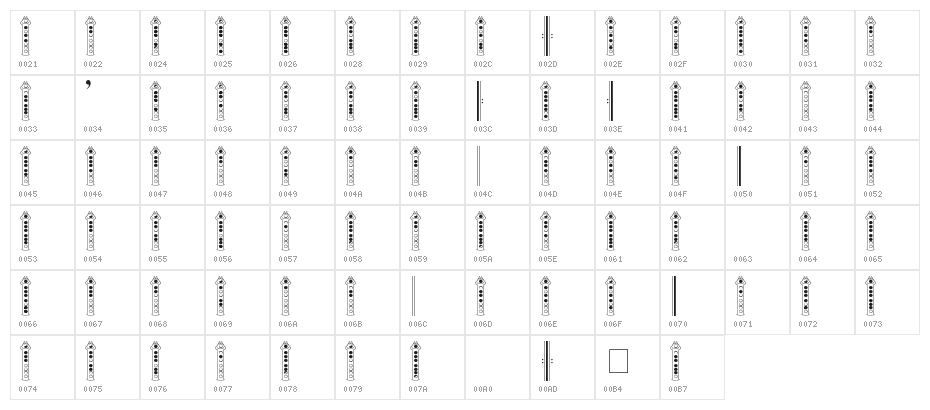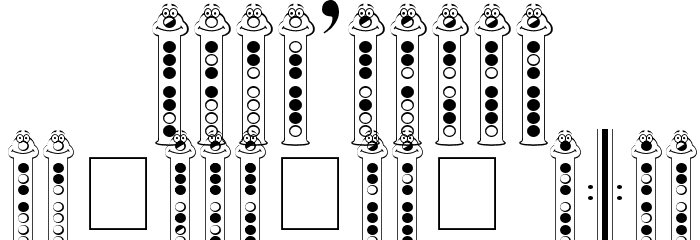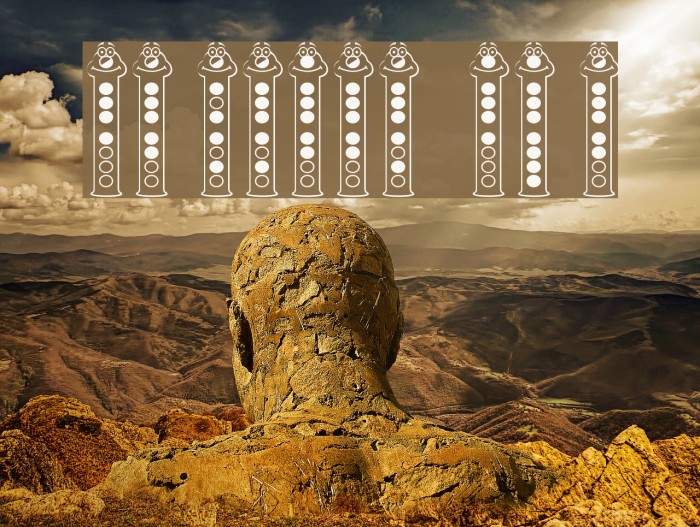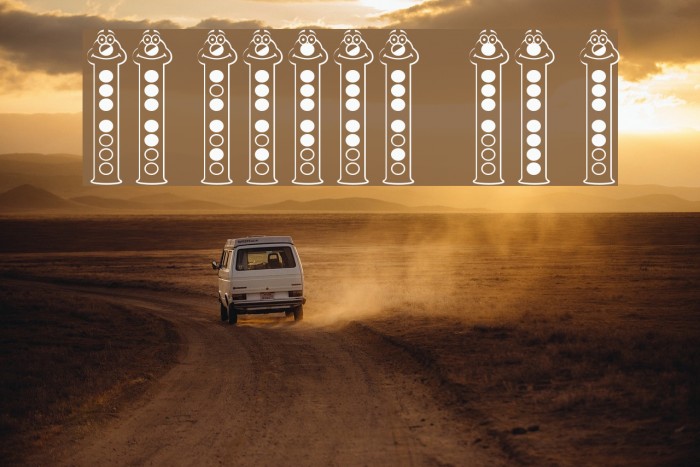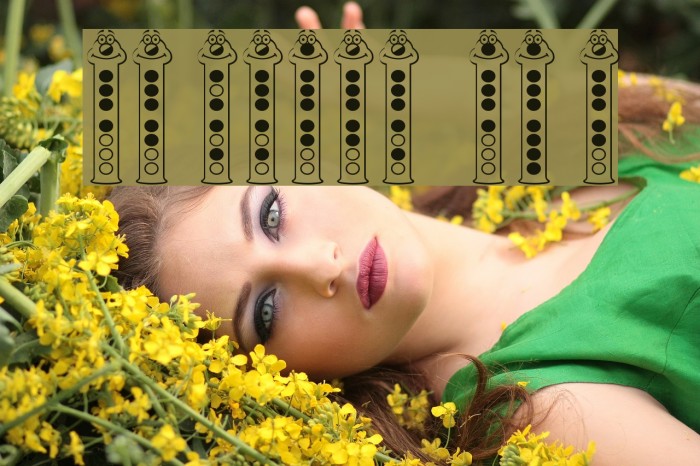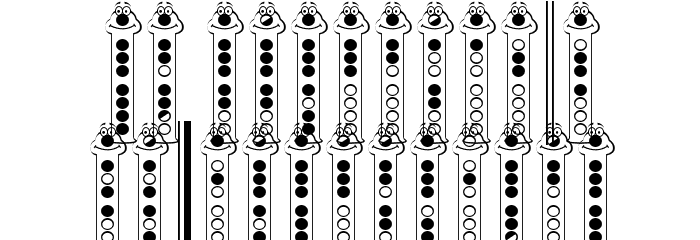
Recorder Face Font
Recorder Face Description
This is not a valid font. The image depicts a series of cartoonish recorder instruments with faces, each representing different musical notes or symbols. The design is playful and whimsical, with each recorder featuring a smiling face at the top. The arrangement suggests a musical or educational theme rather than a typographic one. The elements are consistent in style, focusing on a fun and engaging visual representation rather than traditional font characteristics.
| Overall Style | Playful, Educational |
| Use Case | Educational materials, Children's books, Posters |
| Proposed Projects | This design could be used for educational materials in music classes, children's books, or playful posters related to music education. |